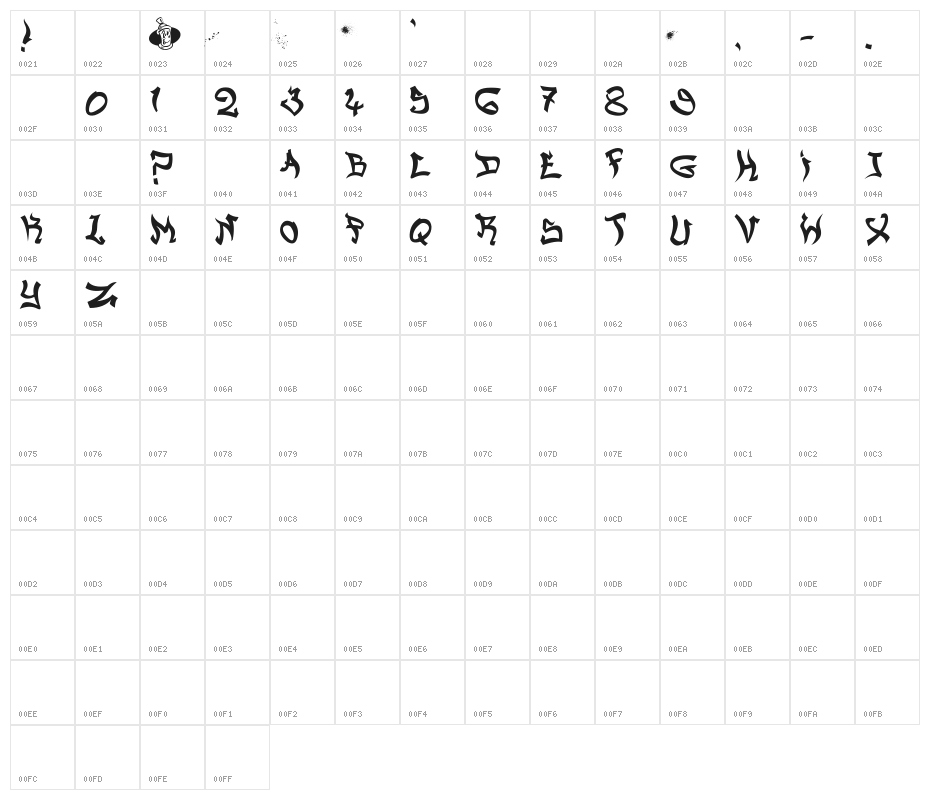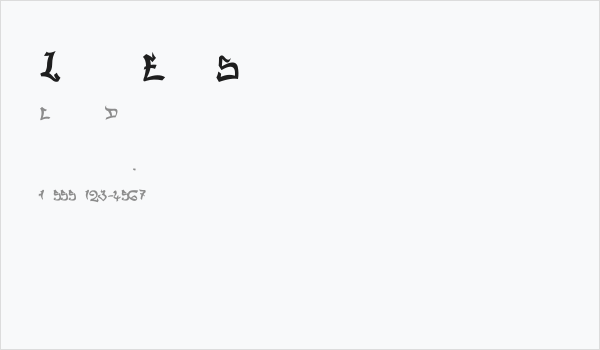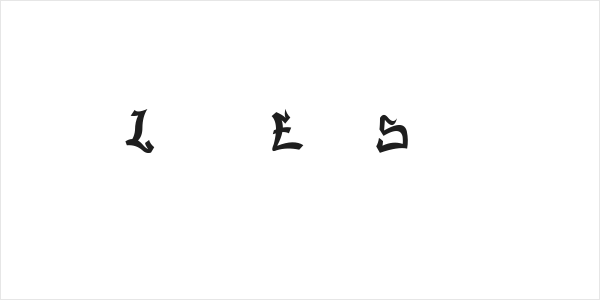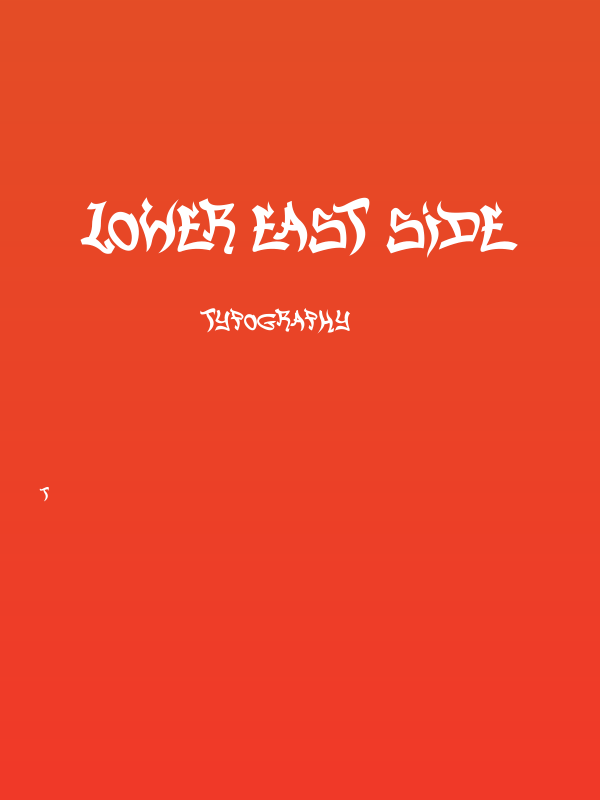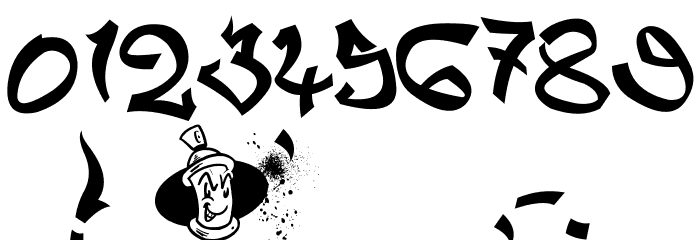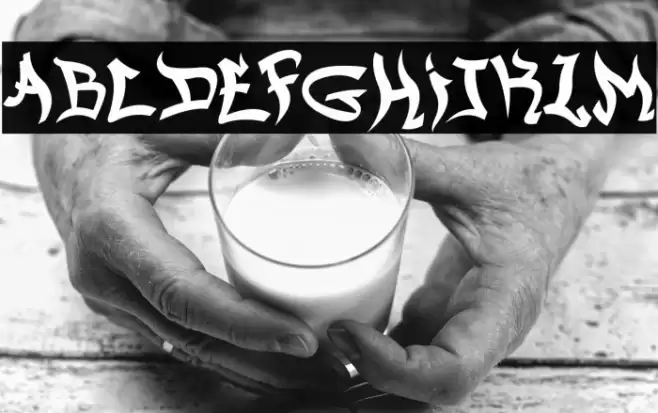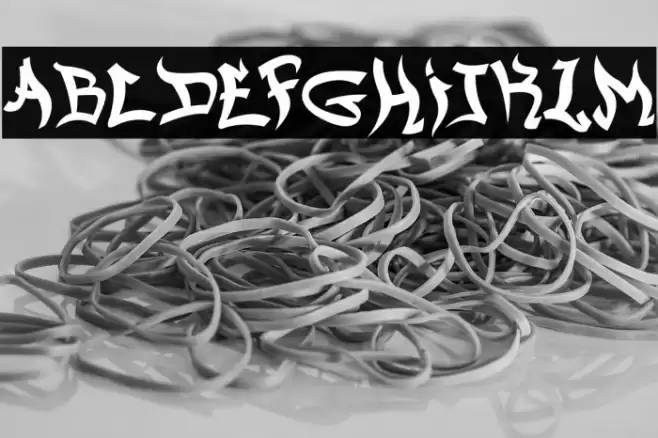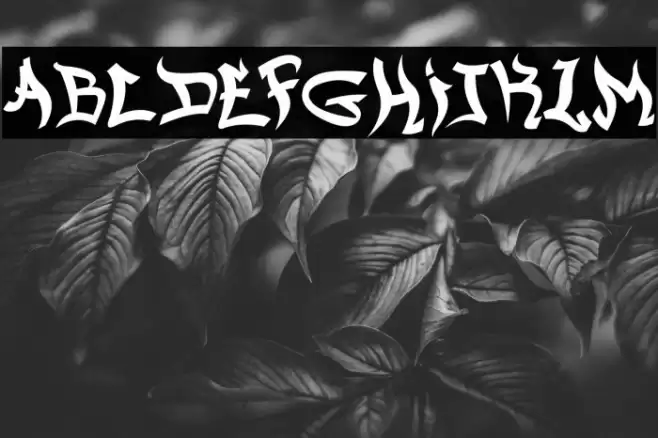
Lower East Side Font
Lower East Side Description
This font features a bold and dynamic style with a graffiti-inspired aesthetic. The letters are characterized by sharp angles and exaggerated curves, giving them a sense of movement and energy. The uppercase letters are particularly striking, with a mix of thick and thin strokes that create a high contrast effect. The numbers and special characters maintain this bold style, adding a playful yet edgy feel. This font is ideal for projects that require a strong visual impact and a modern, urban vibe.
| Overall Style | Modern, Urban, Edgy |
| Proposed Projects | Perfect for street art designs, urban-themed posters, music album covers, and edgy branding projects. |